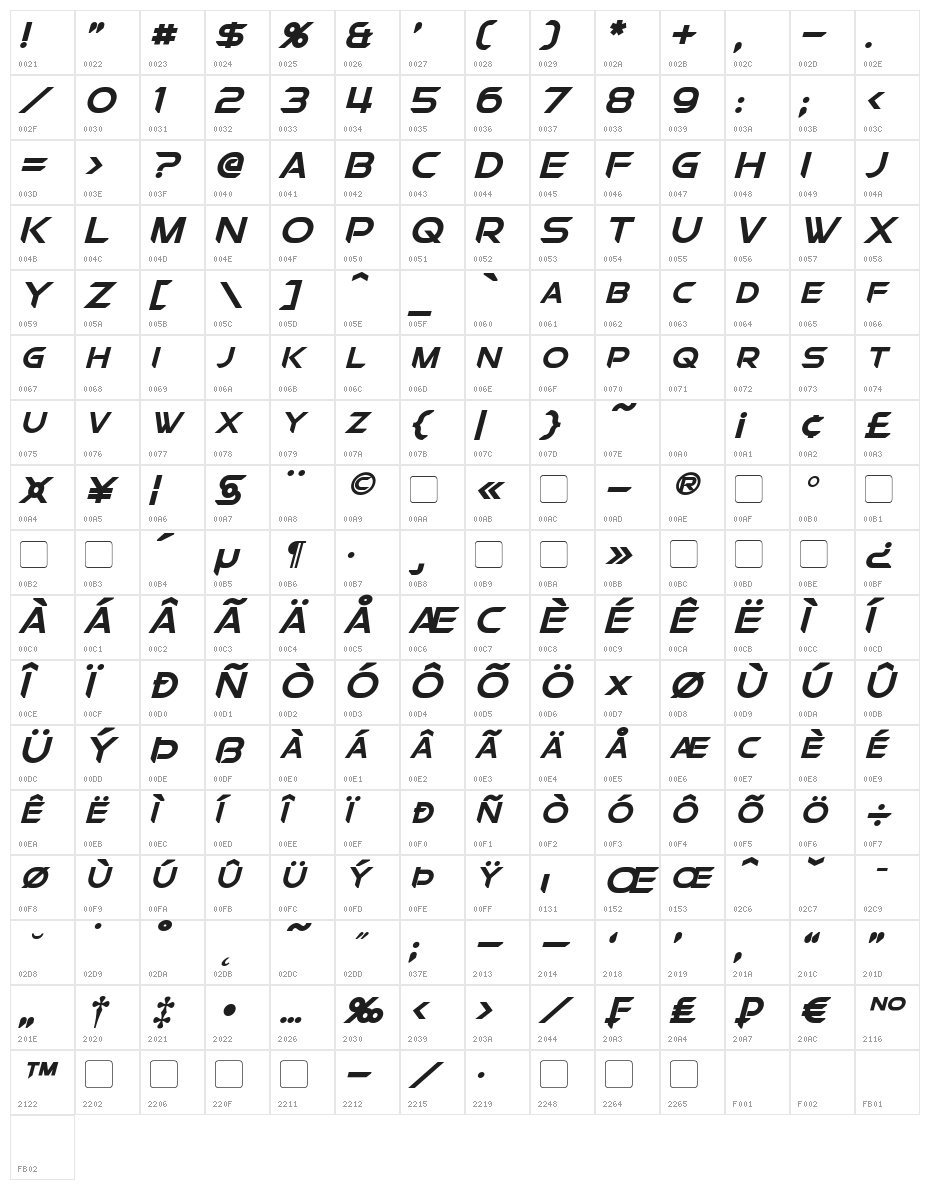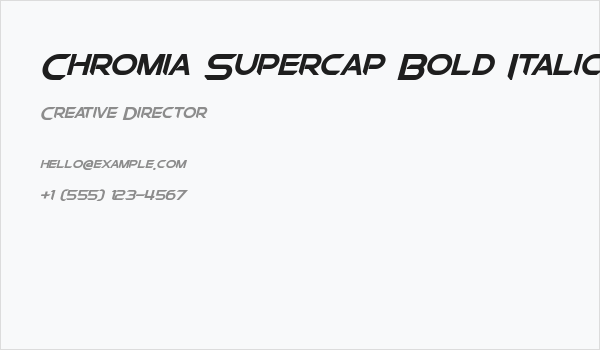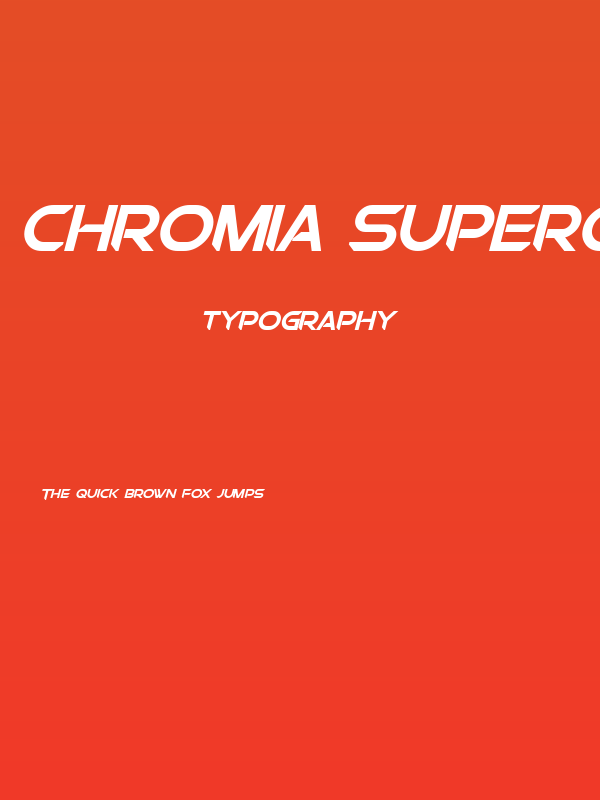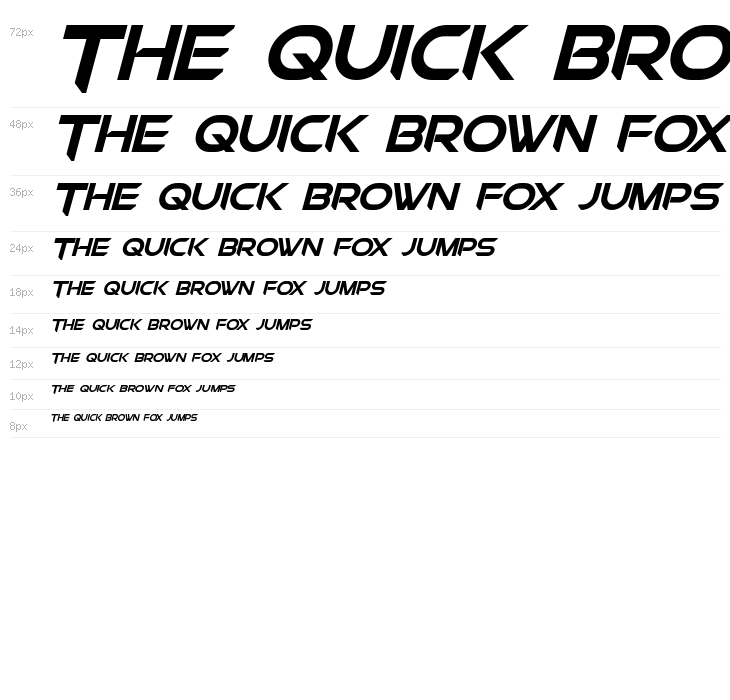
Chromia Supercap Bold Italic Font
Chromia Supercap Bold Italic Description
This font features a bold and italicized style with a modern and dynamic appearance. The characters are sharply angled, giving a sense of motion and energy. The uppercase and lowercase letters maintain a consistent slant, enhancing the italic effect. The numbers are equally bold and maintain the same slant, ensuring uniformity across all characters. Special characters are designed to match the overall aesthetic, making them suitable for various design contexts. The font's boldness and italic style make it stand out, ideal for attention-grabbing headlines or branding materials.
| Proposed Projects | Ideal for sports branding, dynamic posters, modern logos, and eye-catching headlines. |